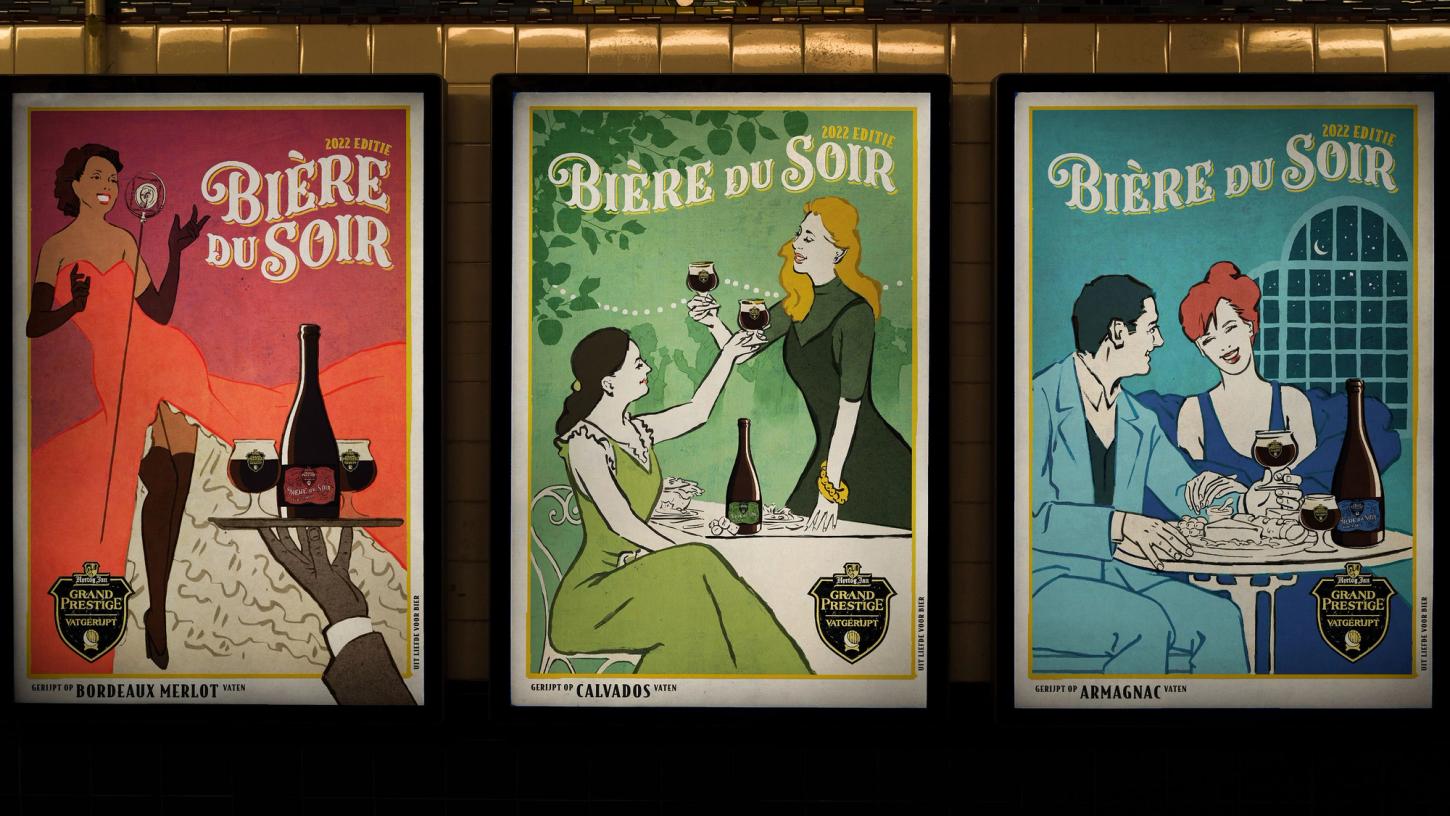
It was a pleasure to work on this wavey, French-influenced lettering with local design agency, Osborne Pike.
Presented with a loose design, I redrew the the overall composition, shaping the letters and swashes to sit comfortably on the curved baselines. Finally, to ensure a clean, hand-crafted feel I drew the drop shadow by eye giving the overall design a little je ne sais quoi.